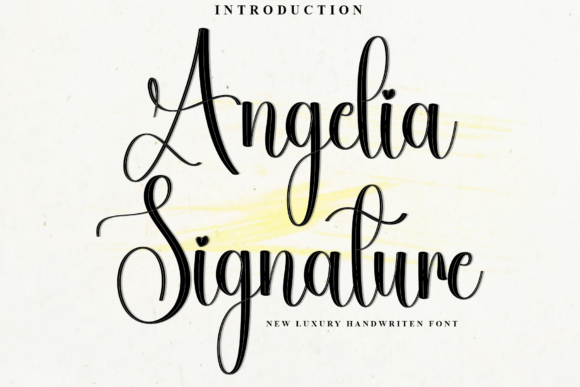
Introducing Angelia Signature Font: The Perfect Blend of Casual and Creative
Are you looking for a font that can add a personal touch to your designs? Look no further than Angelia Signature Font. This casual and creative font is designed to exude warmth and friendliness, making it perfect for personal projects, invitations, and social media graphics.
What Makes Angelia Signature Font So Special?
Angelia Signature Font is a unique and charming font that features round, playful strokes that create a relaxed and approachable feel. Its hand-drawn aesthetic adds a fun and unique touch to any design, making it perfect for those who want to add a personal touch to their work.
One of the standout features of Angelia Signature Font is its ability to evoke a sense of warmth and friendliness. This makes it perfect for designs that require a personal touch, such as:
- Personal projects, such as photo albums or scrapbooking
- Invitations, such as wedding invitations or birthday party invites
- Social media graphics, such as Facebook posts or Instagram stories
The Benefits of Using Angelia Signature Font
There are many benefits to using Angelia Signature Font in your designs. Some of the most notable benefits include:
- Unique and charming aesthetic: Angelia Signature Font has a unique and charming aesthetic that sets it apart from other fonts.
- Easy to read: The font’s round, playful strokes make it easy to read, even at small sizes.
- Versatile: Angelia Signature Font is versatile and can be used in a variety of designs, from personal projects to commercial work.
The use of PUA Encoded glyphs in Angelia Signature Font makes it easy to access and use the font’s features, such as:
- Swashes and flourishes
- Alternate characters
- Ligatures
This means that you can easily customize your text and add a personal touch to your designs.
Tips and Tricks for Using Angelia Signature Font
Here are some tips and tricks for using Angelia Signature Font:
- Experiment with different sizes and colors: Angelia Signature Font looks great at a variety of sizes and colors. Experiment with different combinations to find the one that works best for your design.
- Use the font’s features: Take advantage of the font’s features, such as swashes and flourishes, to add a personal touch to your designs.
- Pair with other fonts: Angelia Signature Font pairs well with other fonts. Experiment with different combinations to find the one that works best for your design.
Angelia Signature Font is a unique and charming font that is perfect for personal projects, invitations, and social media graphics. Its casual and creative aesthetic makes it easy to read and adds a fun and unique touch to any design.